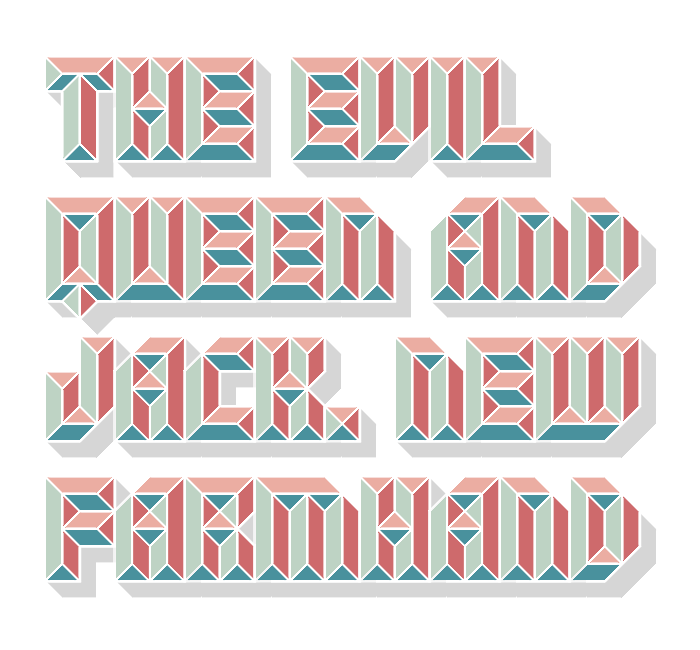
Lovely color palette and excellent shading
@time.peace, minimum, elmoyenique, blu: thank you for your comments and generous ratings. I added a shadow layer and working on the overlapping problem.
Ah, so a subset of the svelte white hairlines are no longer simply implied via negative space – but a layer of white unto themselves to address the overlapping problem? A clever solution to generating properly shadowed word blocks.
I’m with the rest of the crew here. This is gorgeous!
@ William Leverette (will.i.ૐ): Thank you for your comment. Yes, you've figured it out: the white lines are no longer constituted by negative space but a solid white layer on top of the shadow layer. Without this layer, the grey shadows would overlap with the next glyph. To keep everything simple I didn't recreate the lines themselves. I just made a solid white shape covering the whole coloured area plus the margins. (The colour palette from top to bottom: North #ebada2, East #ce6a6c, West #bed3c4, South #49919d, #ffffff, Shadow #d6d6d6.)
I wanted to create a font that otherwise would have been impossible to make without the layer/colour function. The next logical step would be a variable font: setting the colours with sliders at will.
What a beautiful development of Gimli Bevel Black. The white lines and shadows add an extra touch of magic.